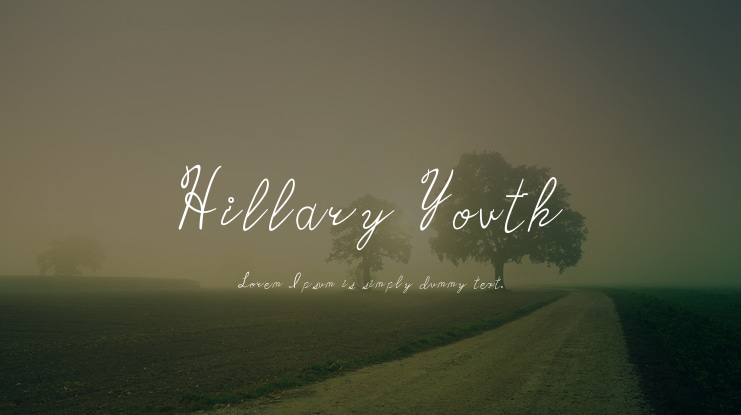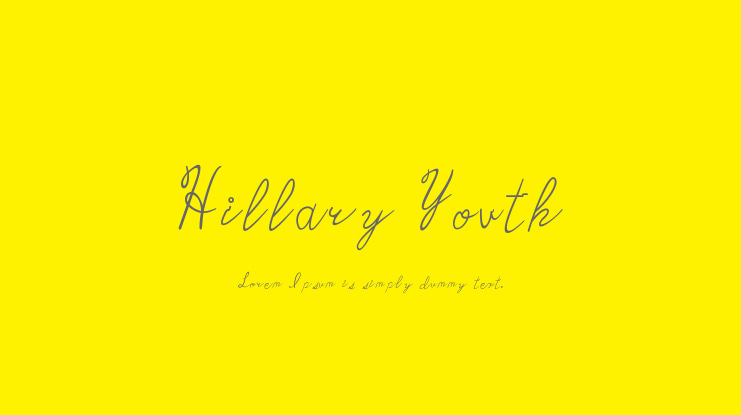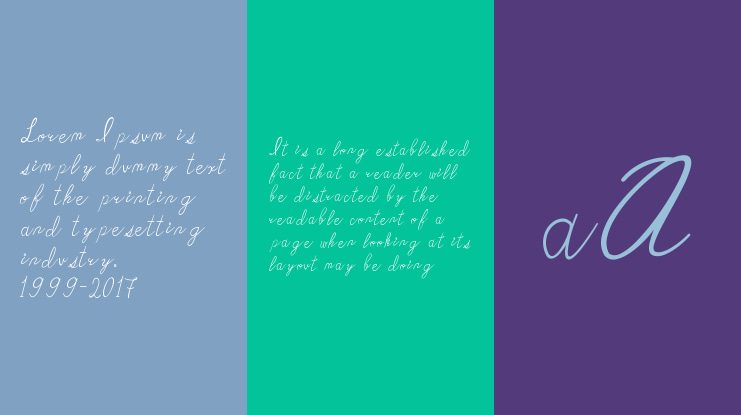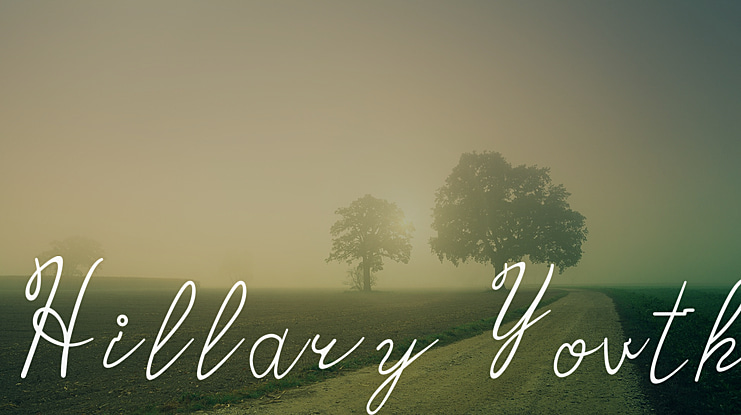
Hillary Youth Font
Hillary Youth is a hand made font crafted with love.
The pack includes alternates for lowercase characters to make it look like freshly hand written. Designed to work perfectly in multiple designs like wedding invitations, website logos, Instagram posts and many many more.